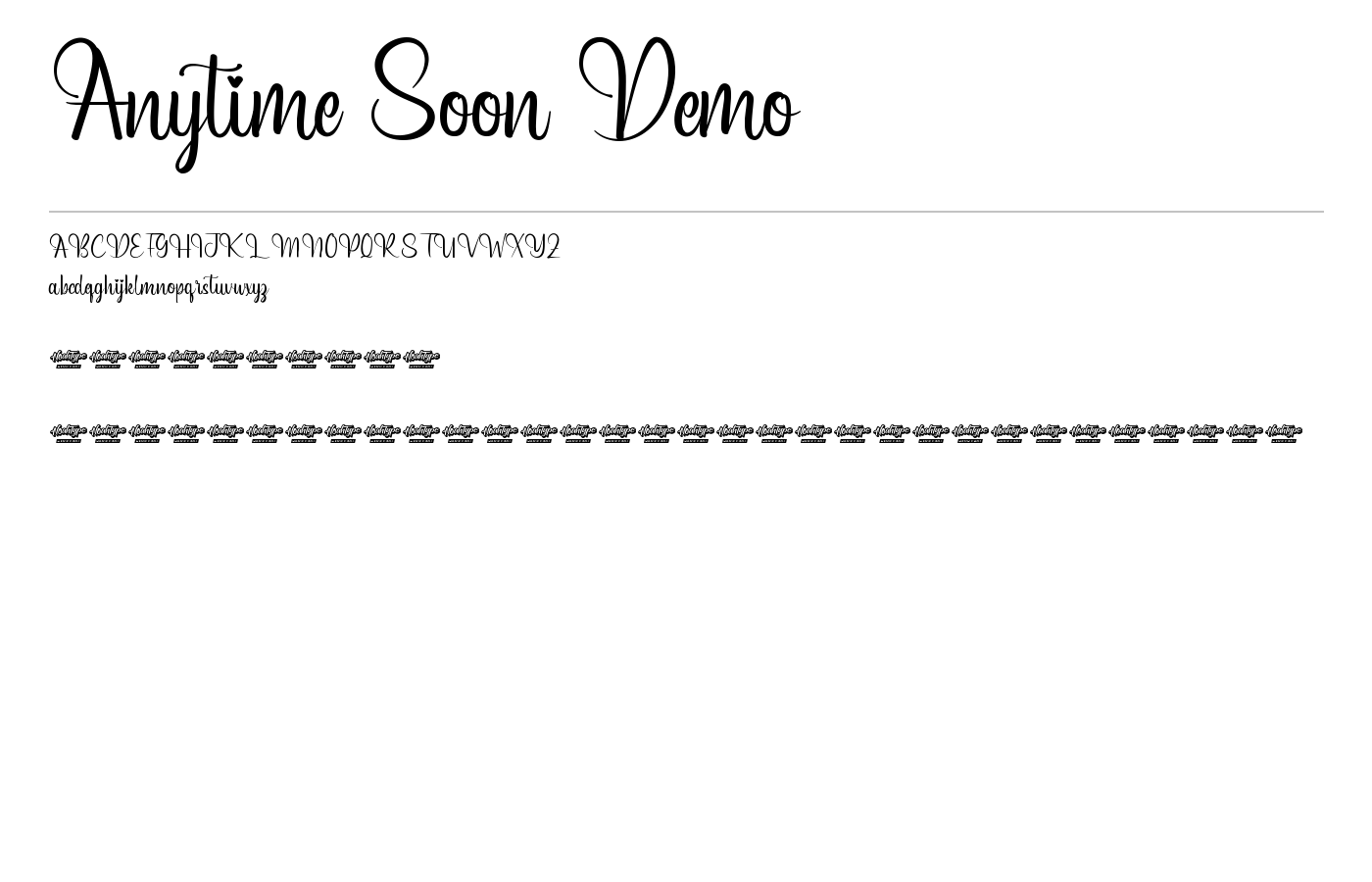
Anytime Soon Demo is a delicate and elegant script font with a playful and feminine touch, characterized by its smooth, flowing strokes and charming loops. Its light weight and tall, narrow letterforms make it perfect for invitations, branding, and stylish headlines where a graceful, hand-lettered feel is desired. This font works beautifully for creative projects that aim to convey warmth, friendliness, and a personal, artistic vibe.
Anytime Soon Demo Font
About Anytime Soon Demo Font
| Font family | Anytime Soon Demo Font |